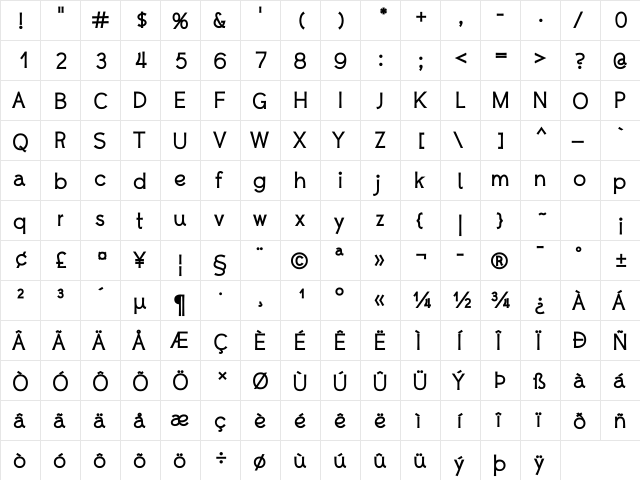
Whipsmart Bold
| Designer | Lauren Thompson (Nymphont/NymFont) |
Design Context for Whipsmart Typeface
Whipsmart offers clean, dependable letterforms without strong stylistic allegiance, making it a practical choice for designers who need flexibility. Its bold stroke weight gives it real presence on the page.